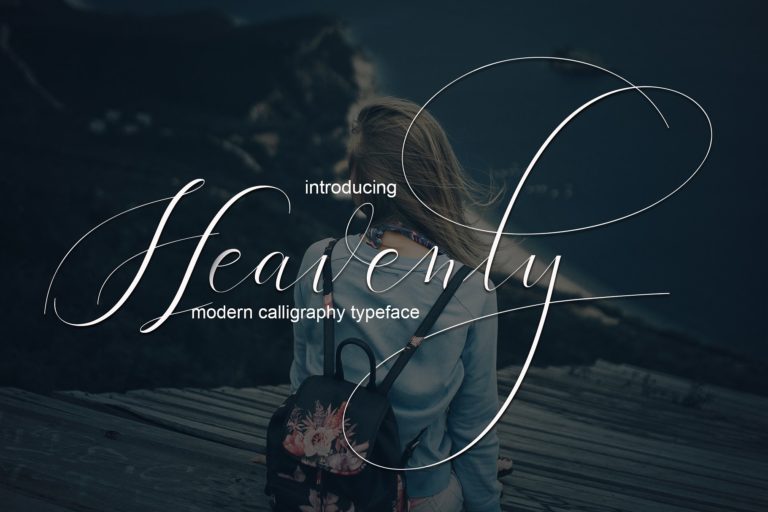
Heavenly Script Font
A modern calligraphy typeface, If you are looking for a calligraphy font, then it is! It will make you happy. Introducing Heavenly Font. Heavenly is a modern calligraphic font with a very cool handwriting style, this font is perfect for your various design needs such as branding, wedding invitations, magazines, mugs, business cards, posters, and more.